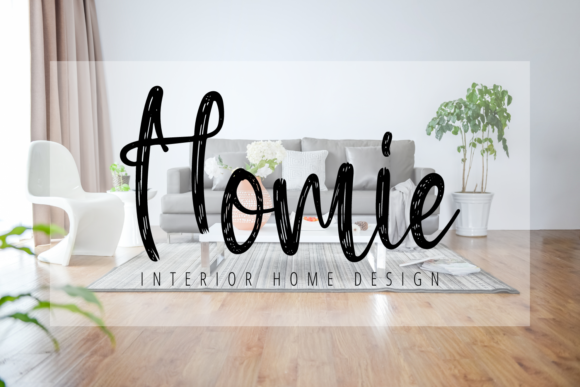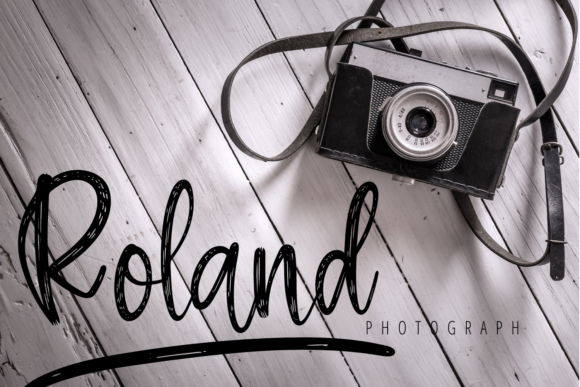
Pillowway Font
db-ku.com - Script & Handwritten -- Pillowway is a clean and relaxed handwritten font. Whether you’re looking for fonts for Instagram or calligraphy scripts for DIY projects, this font will turn any creative idea into a true piece of art!